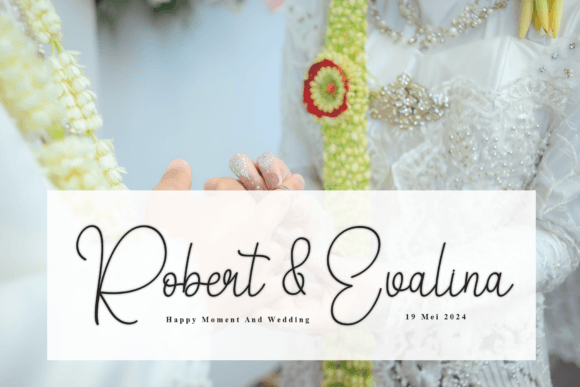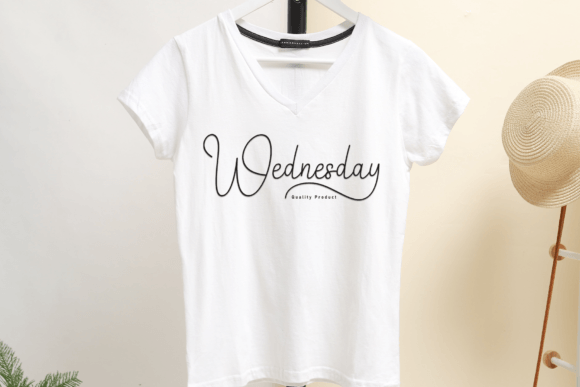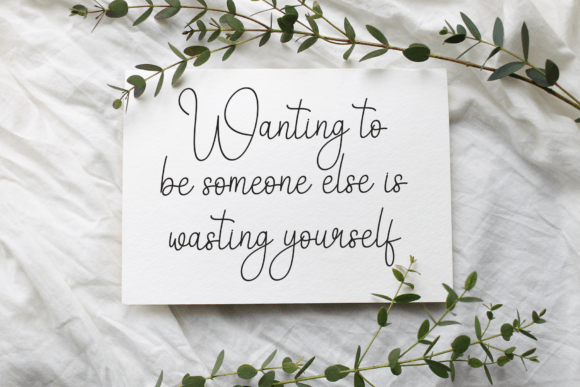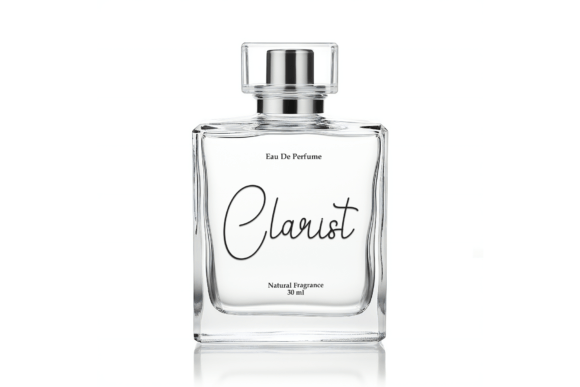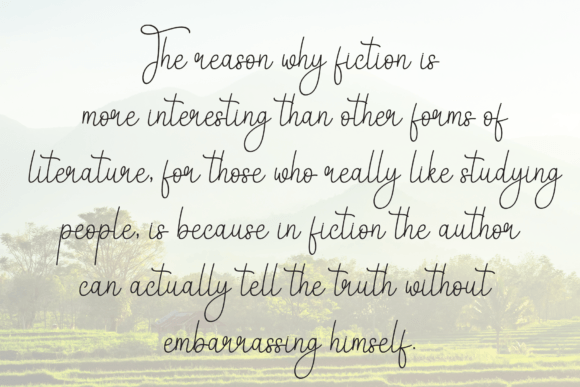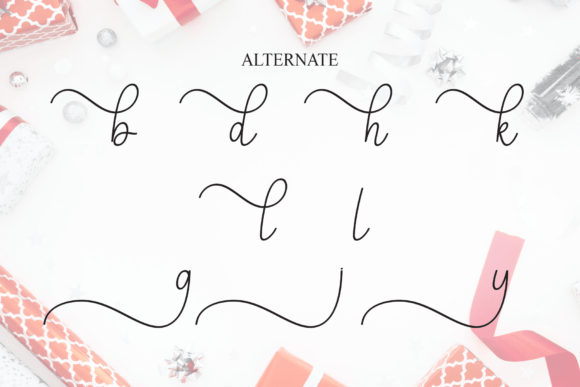
Introducing Birthday Font: The Perfect Addition to Your Creative Projects
Are you a designer or crafter looking for a font that can add a touch of elegance and sophistication to your creative projects? Look no further than Birthday Font! This beautiful, handwritten font is perfect for a wide range of designs, from birthday cards and invitations to branding and packaging.
What Makes Birthday Font So Special?
Birthday Font is a delicate, elegant, and flowing handwritten font that is sure to impress. Its beautiful and well-balanced characters make it a versatile font that can be used in a variety of creative projects. Whether you’re designing a birthday card, creating a social media graphic, or developing a brand identity, Birthday Font is the perfect choice.
- Delicate and elegant design: Birthday Font features a beautiful, handwritten design that is both delicate and elegant.
- Flowing characters: The font’s flowing characters make it perfect for creating beautiful, eye-catching designs.
- Well-balanced characters: The font’s well-balanced characters ensure that it matches a wide pool of designs, making it a versatile choice for any creative project.
How to Use Birthday Font in Your Designs
Birthday Font is easy to use and can be incorporated into a wide range of designs. Here are a few ideas to get you started:
- Birthday cards and invitations: Use Birthday Font to create beautiful, eye-catching birthday cards and invitations that are sure to impress.
- Branding and packaging: Add a touch of elegance and sophistication to your brand identity with Birthday Font.
- Social media graphics: Use Birthday Font to create stunning social media graphics that are sure to grab attention.
- Wedding and event planning: Birthday Font is also perfect for wedding and event planning, adding a touch of romance and elegance to your designs.
Why Choose Birthday Font?
There are many fonts to choose from, but Birthday Font stands out from the rest. Here are a few reasons why:
- Unique and elegant design: Birthday Font features a unique and elegant design that is sure to impress.
- Versatile: The font’s versatility makes it perfect for a wide range of creative projects.
Tips and Tricks for Using Birthday Font
Here are a few tips and tricks for using Birthday Font in your designs:
- Experiment with different colors: Try out different colors and color combinations to see what works best with Birthday Font.
- Play with font sizes: Experiment with different font sizes to add depth and interest to your designs.
- Combine with other fonts: Try combining Birthday Font with other fonts to create a unique and eye-catching design.
Birthday Font is a beautiful, elegant, and versatile handwritten font that is perfect for a wide range of creative projects. Its delicate and flowing characters make it a great choice for designers and crafters looking to add a touch of sophistication and elegance to their designs. With its ease of use and versatility, Birthday Font is sure to become a favorite in your design toolkit.